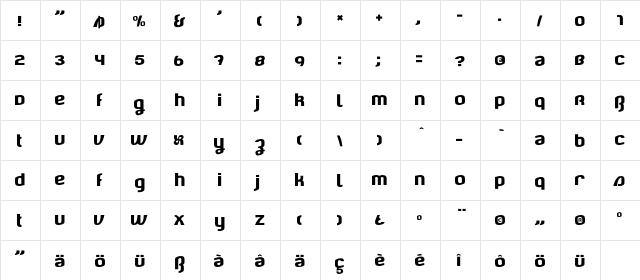
Cluster Regular
Design Context for Cluster Typeface
Cluster offers clean, dependable letterforms without strong stylistic allegiance, making it a practical choice for designers who need flexibility.
Pro Tip: Use Cluster in both headline and body roles to test its range before committing to a single application.